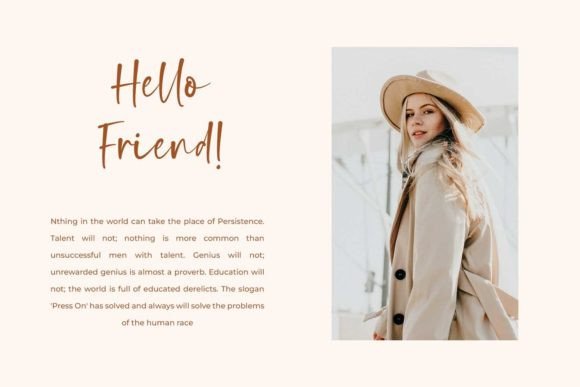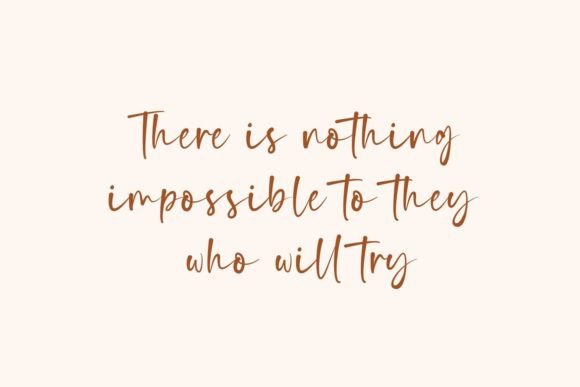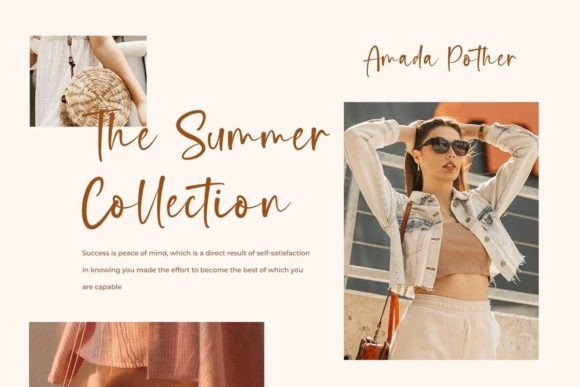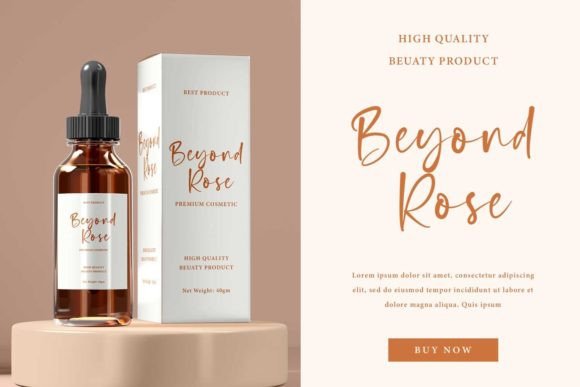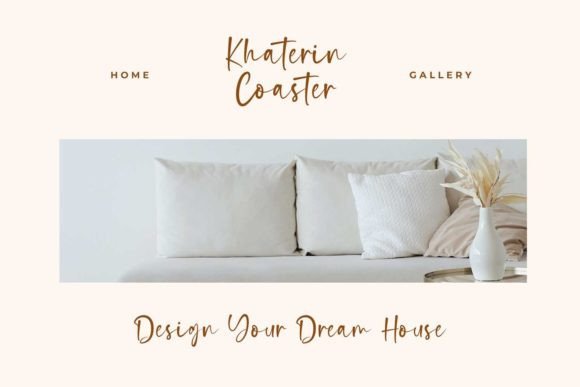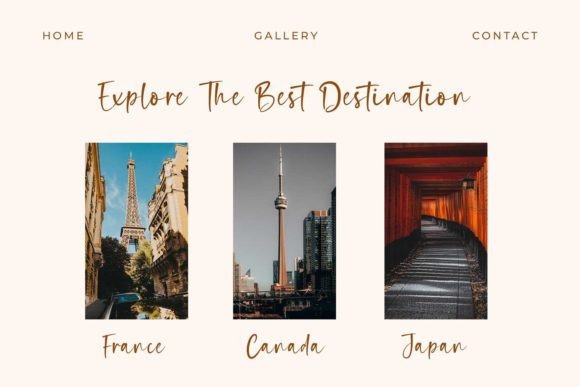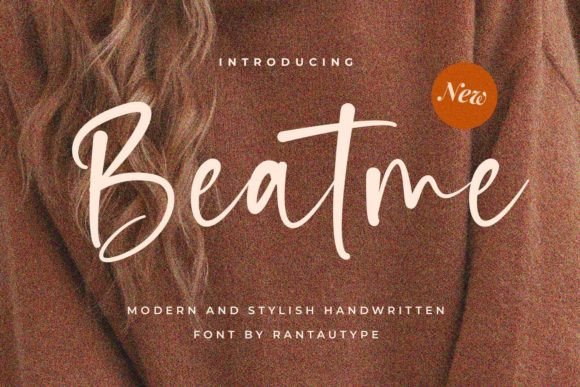
Introducing Beatme Font: Elevate Your Designs with Elegance and Sophistication
In the world of typography, a font can make all the difference in the aesthetic and feel of a design. For those seeking a stylish and contemporary look, Beatme Font is an excellent choice. This trendy signature script font exudes elegance and sophistication, making it perfect for various design applications. In this article, we’ll explore the features and benefits of Beatme Font, and why it’s a must-have for designers and crafters.
The Characteristics of Beatme Font
Beatme Font is a script font that boasts fluid and flowing letterforms, which give it a unique and stylish appearance. Its elegant and sophisticated look makes it ideal for designs that require a touch of class. The font’s modern charm is perfect for those who want to add a contemporary twist to their designs. Whether you’re creating a logo, branding materials, or invitations, Beatme Font is sure to impress.
Key Features of Beatme Font
- Elegant and Sophisticated: Beatme Font’s fluid and flowing letterforms give it an air of elegance and sophistication, making it perfect for high-end designs.
- Trendy and Contemporary: The font’s modern charm ensures that your designs look fresh and up-to-date.
- Versatile: Beatme Font can be used for various design applications, including logos, branding, invitations, and more.
- Easy to Read: Despite its elegant and cursive nature, Beatme Font is easy to read, making it perfect for body text and headlines.
Uses of Beatme Font
Beatme Font is a versatile font that can be used in various design applications. Here are some of the most popular uses of this elegant font:
- Logo Design: Beatme Font is perfect for creating elegant and sophisticated logos that make a lasting impression.
- Branding: Use Beatme Font to create a cohesive brand identity that exudes elegance and sophistication.
- Invitations: Add a touch of class to your invitations, whether it’s for a wedding, birthday, or any other special occasion.
- Packaging Design: Beatme Font can be used to create eye-catching packaging designs that stand out on store shelves.
Tips for Using Beatme Font
To get the most out of Beatme Font, here are some tips to keep in mind:
- Pair it with a Sans-Serif Font: Pair Beatme Font with a sans-serif font to create a nice contrast and add visual interest to your design.
- Use it for Headlines and Titles: Beatme Font is perfect for headlines and titles, so use it to add a touch of elegance to your design.
- Experiment with Colors: Beatme Font looks great in various colors, so don’t be afraid to experiment and find the perfect color scheme for your design.
In conclusion, Beatme Font is a trendy signature script font that exudes elegance and sophistication. Its fluid and flowing letterforms make it perfect for designs that require a touch of class. With its versatility, ease of use, and modern charm, Beatme Font is a must-have for designers and crafters. Whether you’re creating a logo, branding materials, or invitations, Beatme Font is sure to elevate your designs and make them stand out.